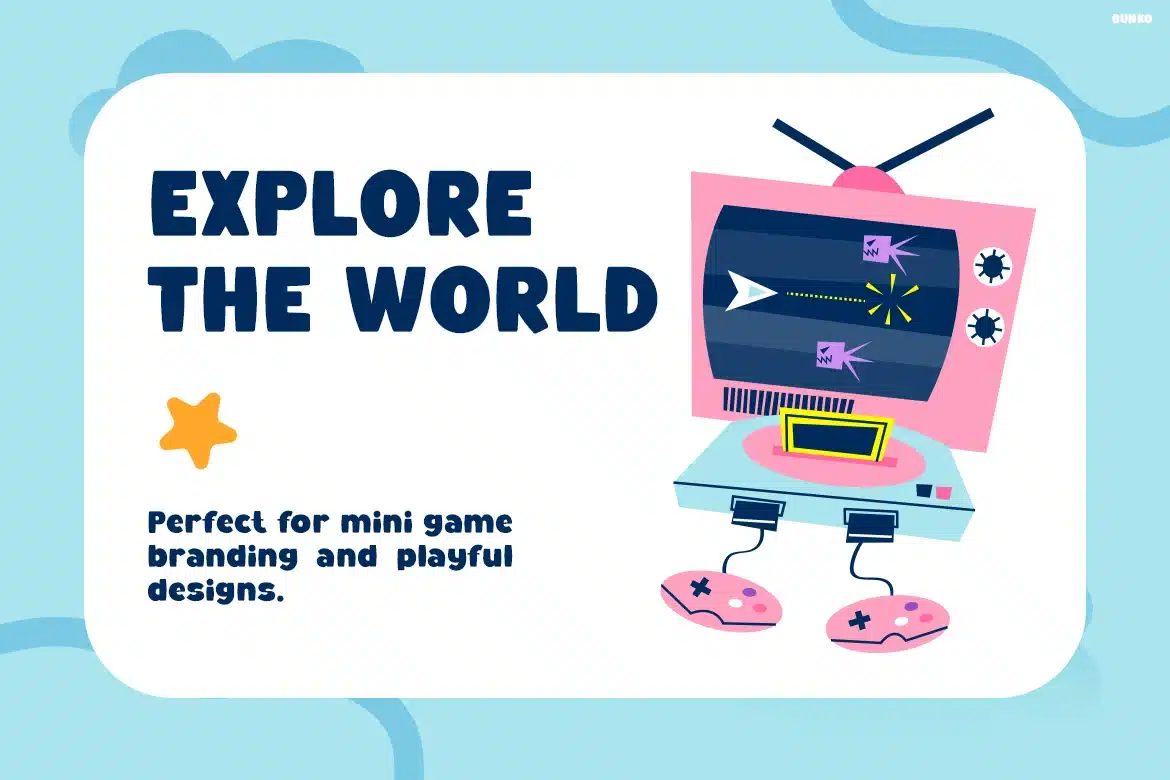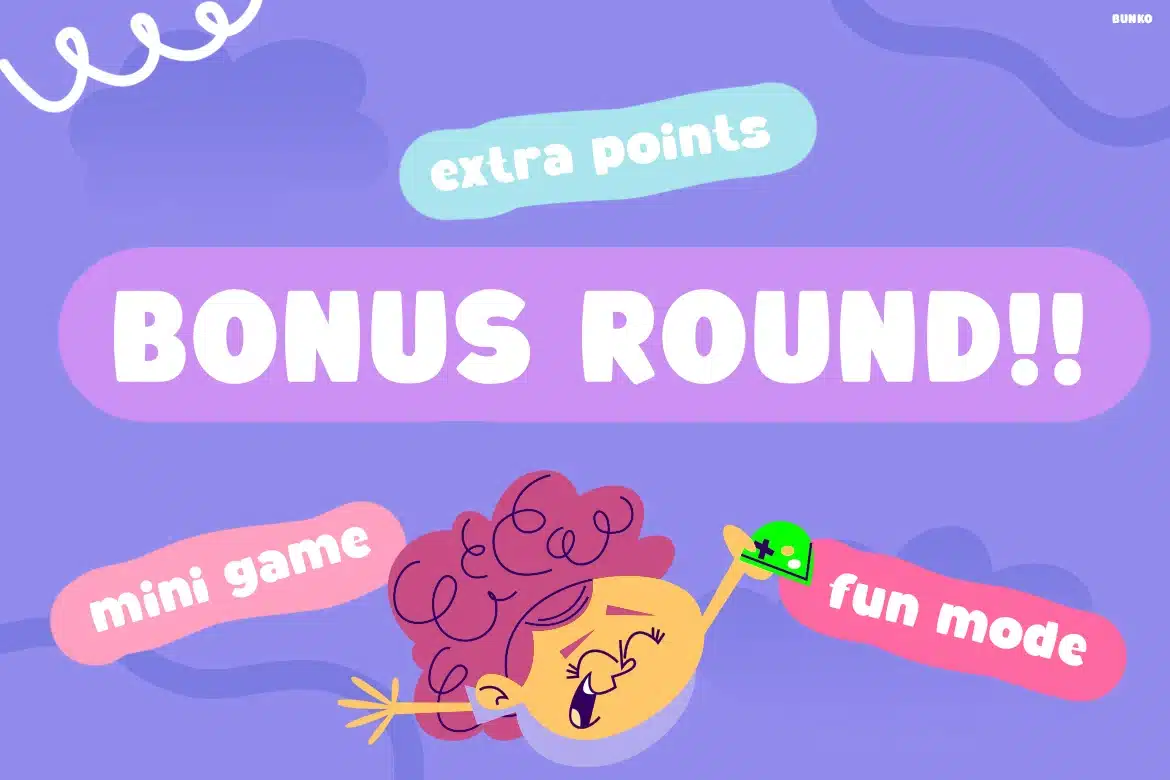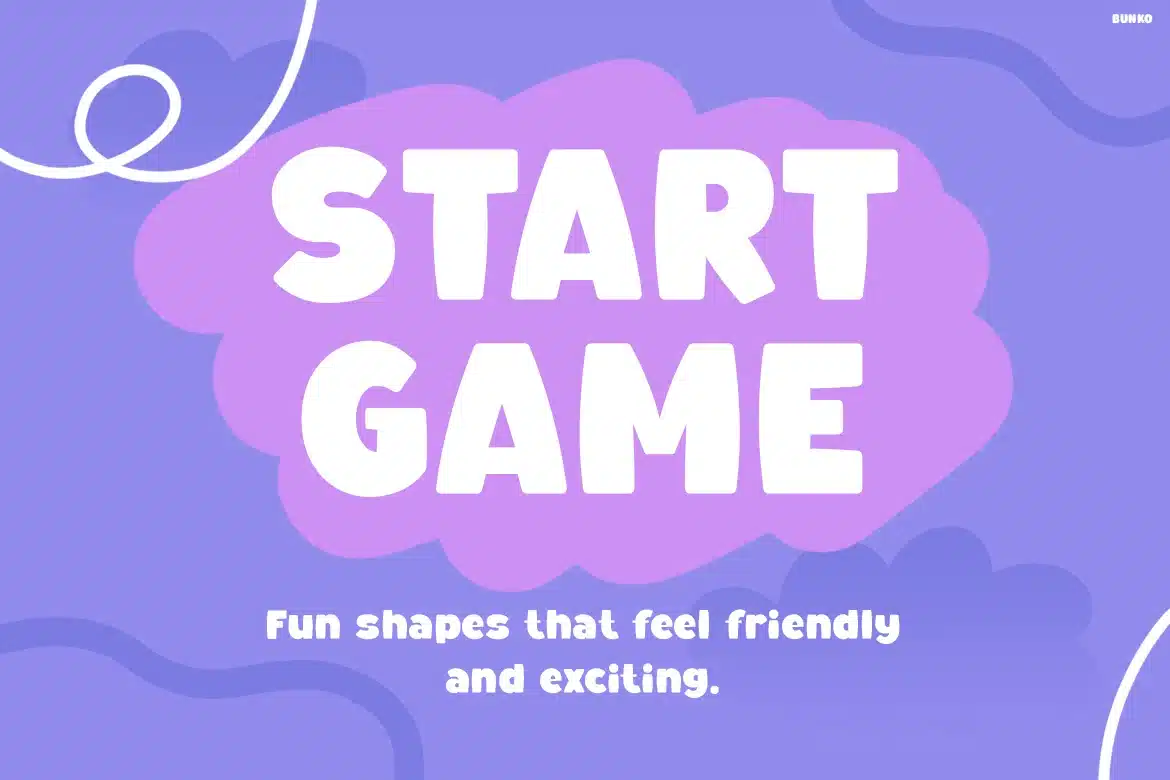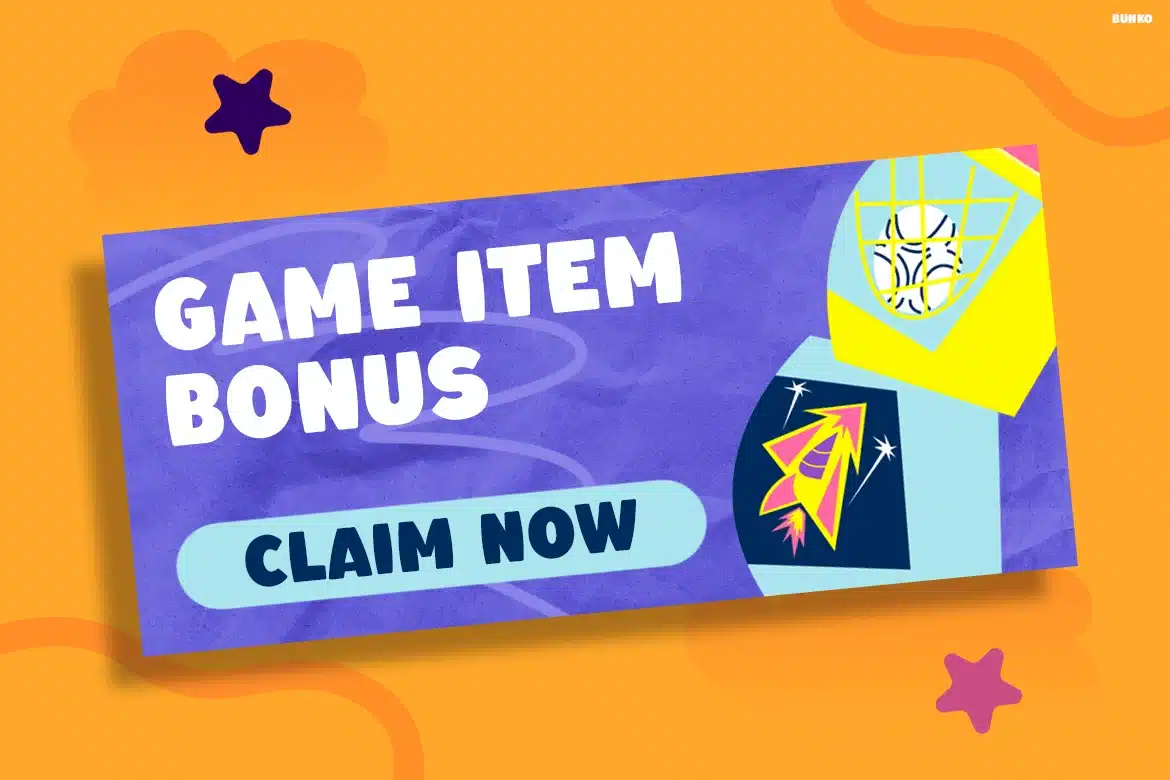
Bunko – Fun Kids Game Display Font
BUNKO – Fun Kids Game Display Font
BUNKO is a playful rounded display typeface for kids gaming visuals and cheerful branding, crafted to bring energy and clarity through its chunky shapes, soft curves, and bouncy baseline. Its bold and expressive vibe fits perfectly into fun-driven markets like mobile games, kids apps, and animated content. The rounded, cartoon-inspired letterforms create a friendly and approachable tone, making it ideal for branding, social media graphics, packaging, and interactive design.
Designed for creators in gaming, kids entertainment, and digital products, BUNKO delivers strong visual impact with a joyful personality. Whether you're building game UI, posters, YouTube thumbnails, or educational content, this typeface helps capture attention instantly. It supports a lively, engaging tone that connects with younger audiences and playful brands aiming for a fun and energetic identity.
Key Features :
Bold Chunky Letterforms
Thick, rounded shapes designed to stand out clearly in busy and colorful layouts. -
Playful & Expressive Style
Bouncy baseline and soft curves create a dynamic, cheerful visual rhythm. -
Kid-Friendly Appeal
Perfect for games, children’s content, toys branding, and educational materials. -
High Visibility Display
Optimized for headlines, UI elements, posters, and social media graphics. -
Versatile Creative Use
Works well across digital apps, packaging, animation titles, and branding systems.